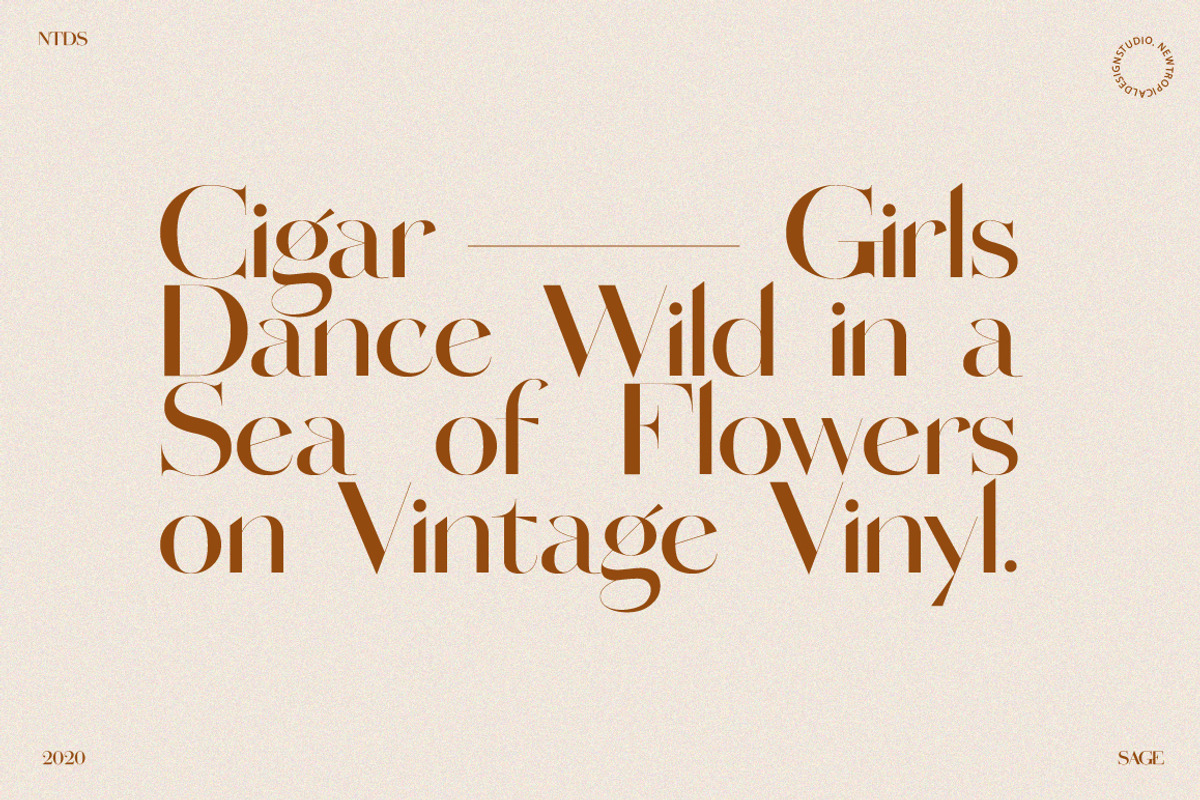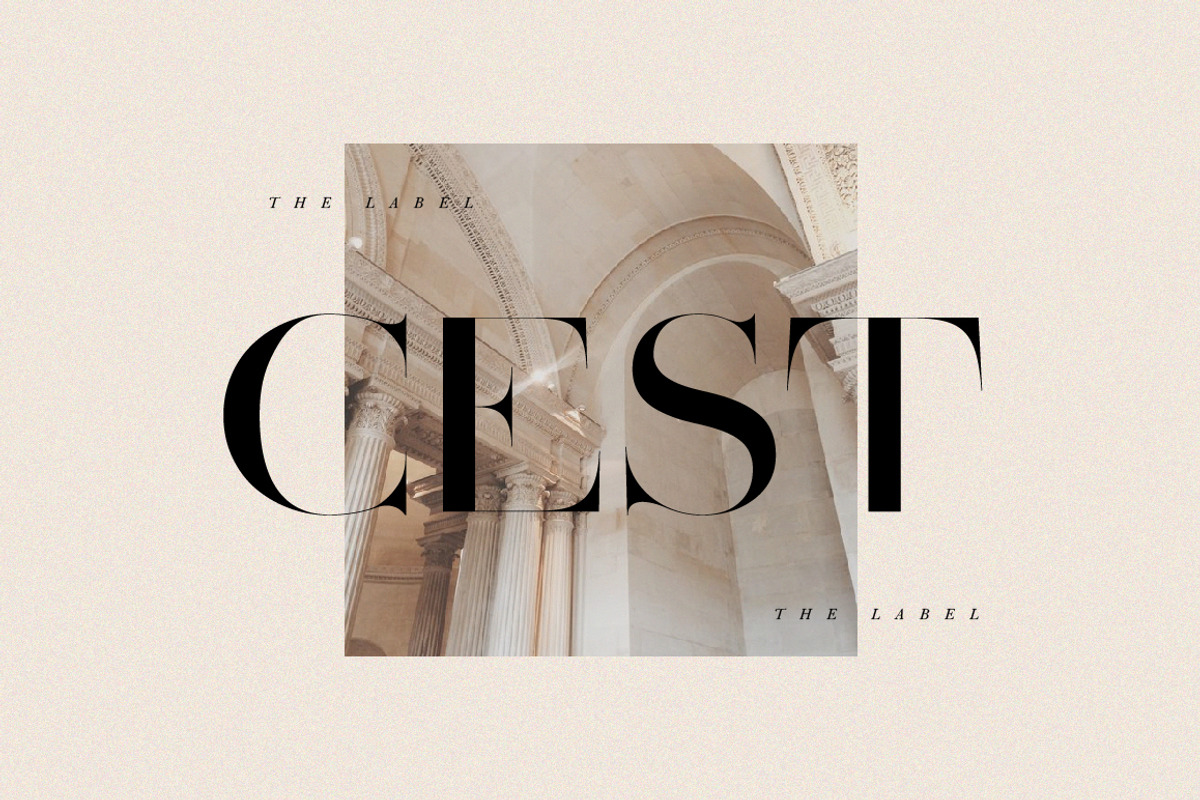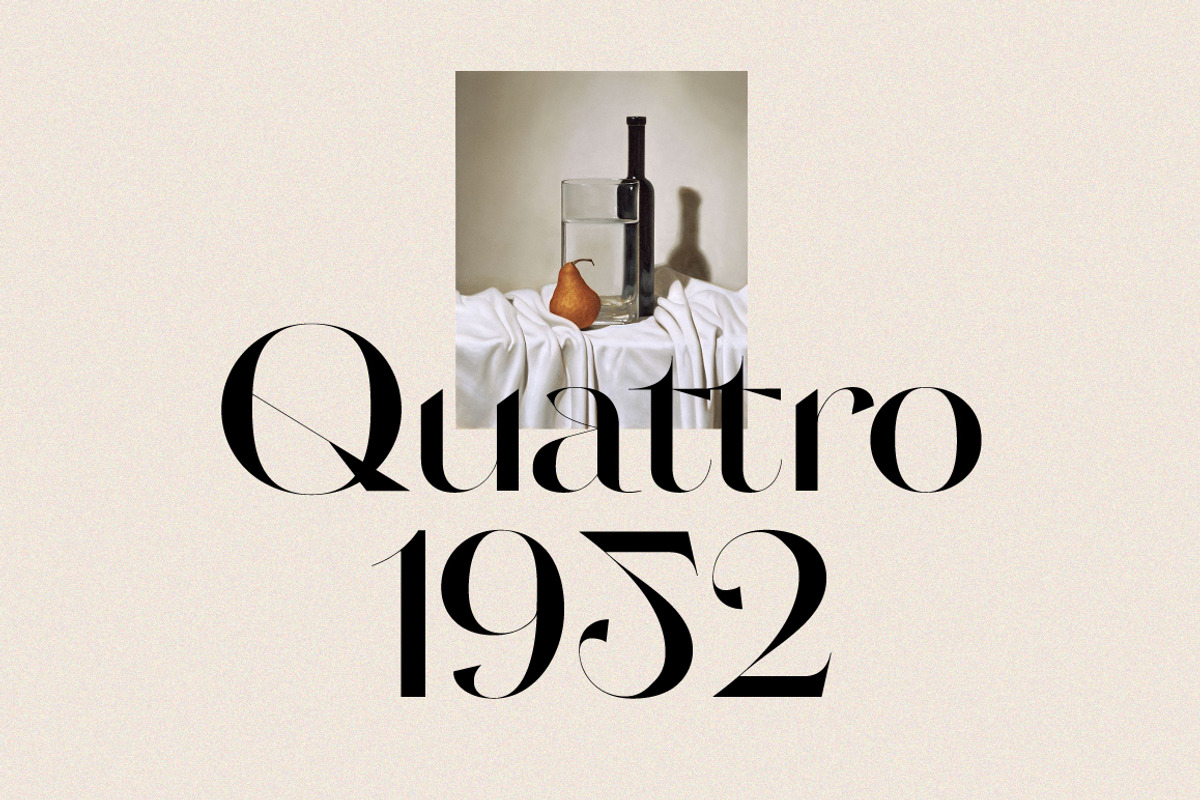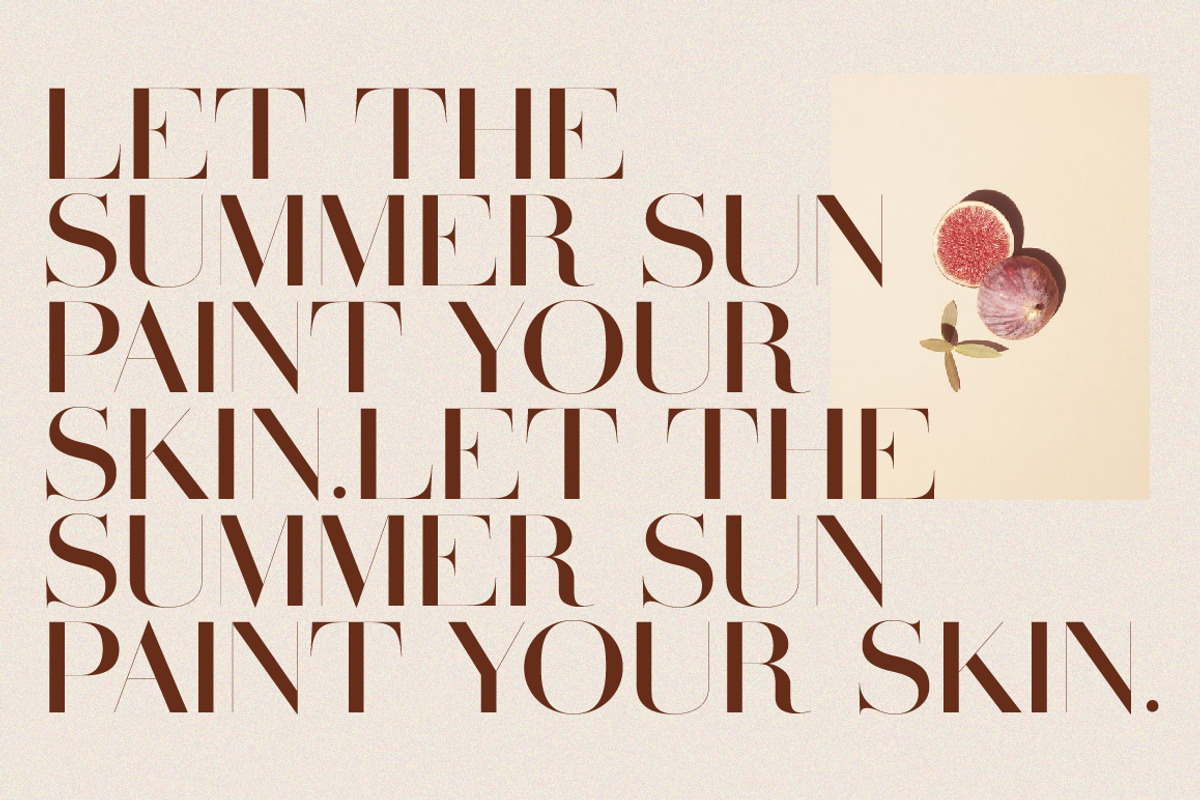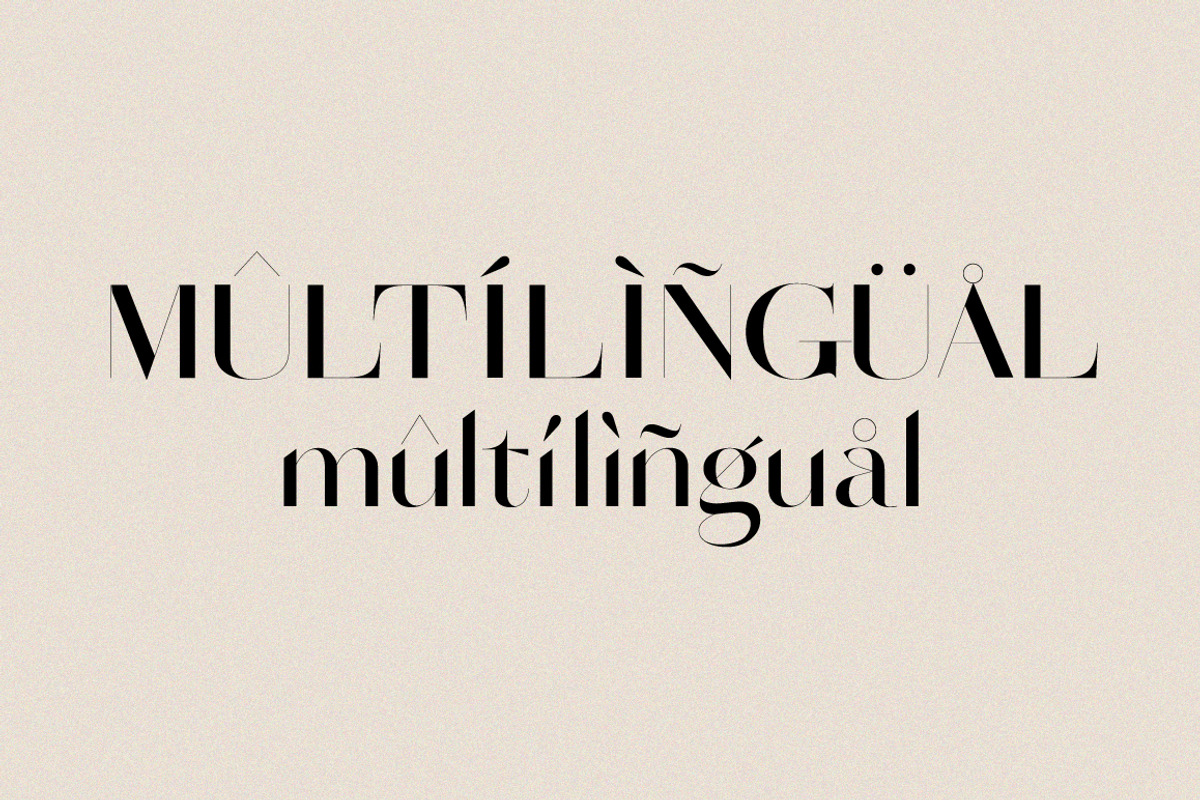
Sage is a modern serif typeface with lots of style. A high-contrast version of a famous Didot look that has been synonymous with fashion for decades. This font has over 100 glyphs with multilingual letters included. It is both modern and nostalgic and works great for logos, mastheads and pull quotes. It pairs beautifully with a minimal sans serif or light script font.
- Full upper and lower case
- Numbers, Punctuation, Multilingual Accents